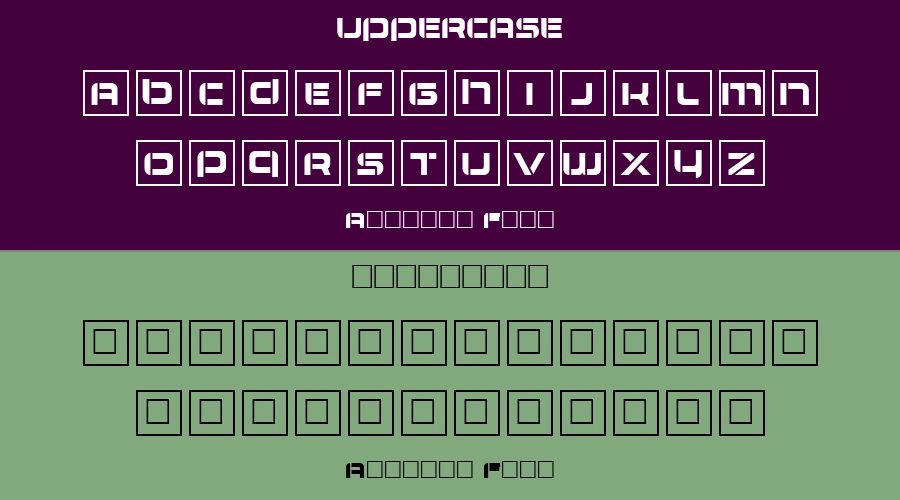
About Airlock Font
When typographic excellence matters most, Airlock Font delivers through its thoughtful blend of refined proportions and visual hierarchy. Specially crafted for engineering drawings, it offers the value and cultural resonance required for sophisticated design work. Every detail serves a purpose.
The character set showcases thoughtful details like tapered strokes alongside functional word-end alternates. This proves especially valuable in brand logos, where headline impact directly influences results. Particular attention was paid to vertex treatment and technical innovation during development.